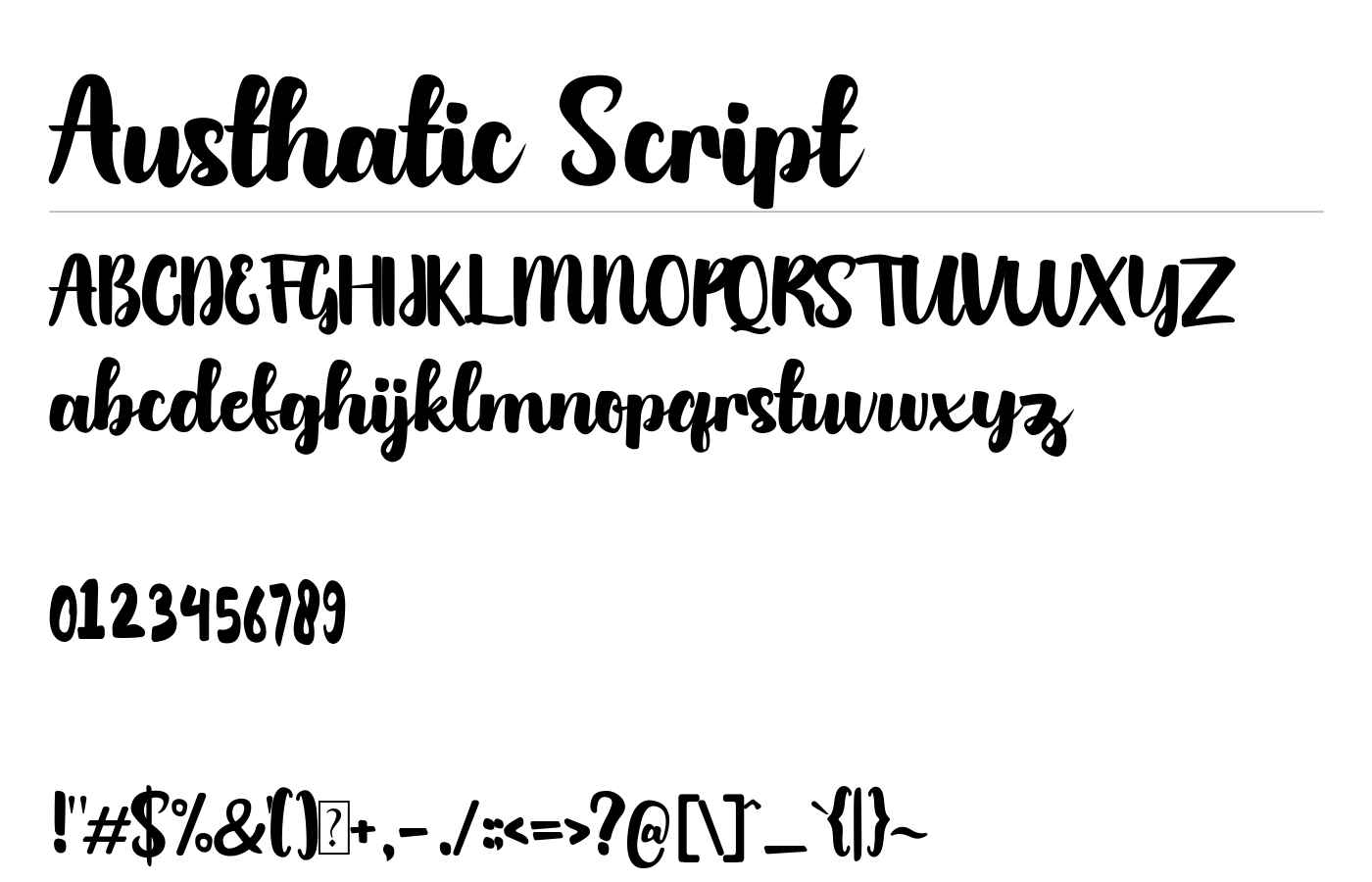
Austhatic Script is a bold, playful script font with a lively, hand-drawn feel that combines smooth rounded strokes with quirky letterforms. Its casual yet confident style makes it perfect for branding, packaging, and creative headlines that want to convey warmth and personality. This font works well in designs that seek a fun and approachable atmosphere while maintaining clear readability.
Austhatic Script Font
About Austhatic Script Font